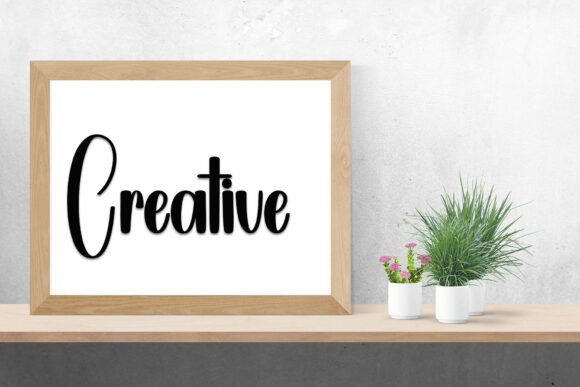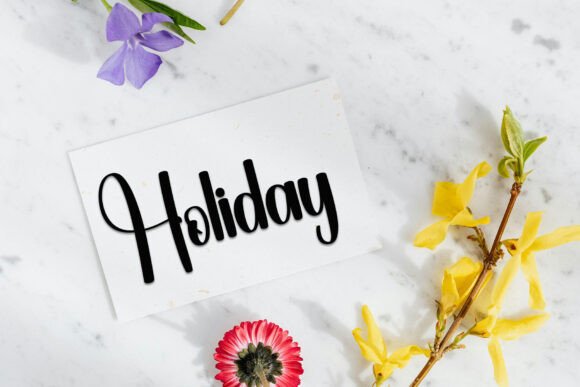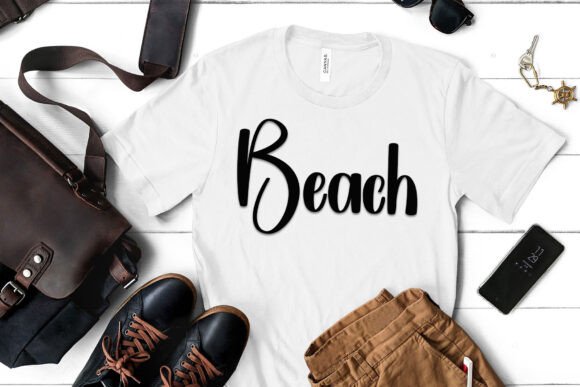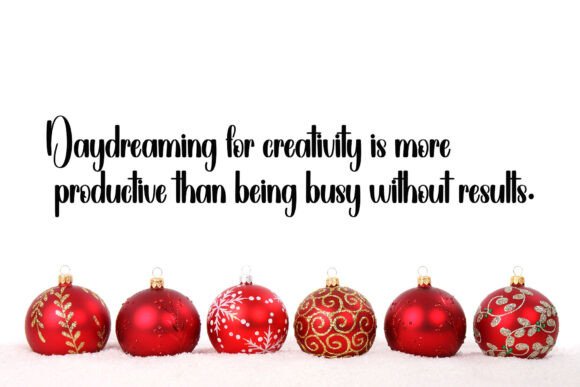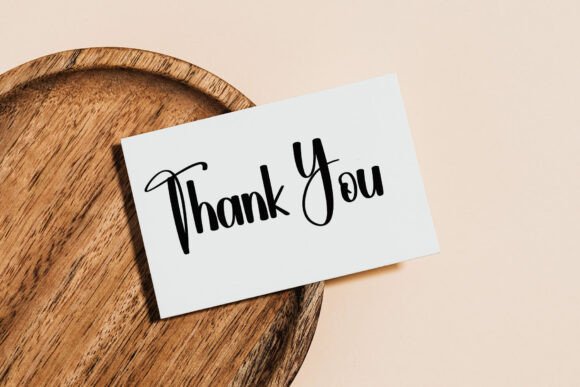
Introduction to Daddys Home Font
As a designer, there’s nothing quite like the thrill of landing on the perfect font for a project. You’re browsing through your favorite font websites, scrolling through page after page of options, and then – it happens. You stumble upon a font that’s so unique, so elegant, and so perfectly suited to your creative vision. For me, that font is the Daddys Home Font.
With its timeless classic calligraphy and contemporary atmosphere, the Daddys Home Font is a true gem for any designer looking to add a touch of sophistication to their project. Whether you’re working on a high-end branding campaign or a personal creative project, this font is sure to make a statement.
Not only does the Daddys Home Font exude high-quality design, but it’s also incredibly versatile – making it the perfect design resource for any project. Plus, with its transparent background, it’s easy to pair with any image or background, giving you complete control over the look and feel of your design.
Key Features of Daddys Home Font
- High-quality design resource for creative projects: Daddys Home Font is a premium font that offers a unique and stylish look for your designs.
- Unique characteristics: The font features a unique blend of modern and vintage elements, making it perfect for designs that require a touch of elegance and sophistication.
Honest Review: Daddys Home Font
I recently stumbled upon the Daddys Home Font and was curious to see what it had to offer. As a designer, I’m always on the lookout for high-quality design resources that can elevate my creative projects.
One of the things that stood out to me about this font was its transparent background, which makes it perfect for projects that require a clean and minimalist aesthetic. ✨ The font itself is also quite unique and adds a touch of personality to any design.
Here are some of the key features that I liked about the Daddys Home Font:
- Transparent background for a clean and minimalist look
- Unique and quirky aesthetic that adds personality to designs
Overall, I’m impressed with the Daddys Home Font and would recommend it to designers who are looking for a unique and high-quality design resource. Just be aware of the limitations and usage restrictions.
Tips for Getting the Most Out of Daddys Home Font
To get the most out of Daddys Home Font, try using it in combination with other design elements to create a unique and eye-catching design. Experiment with different font sizes, colors, and styles to add depth and interest to your design. You can also use Daddys Home Font to create a consistent brand identity across all your marketing materials.